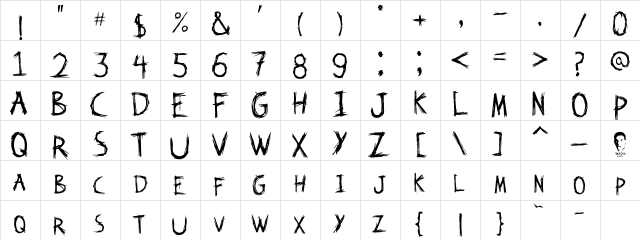
Kat Skratch Regular
Foundry: High-Logic
Designer: High-Logic - Erwin Denissen 1999
Design Context for Kat Skratch
Kat Skratch is a composed and adaptable typeface that performs quietly and consistently across a wide range of design contexts.